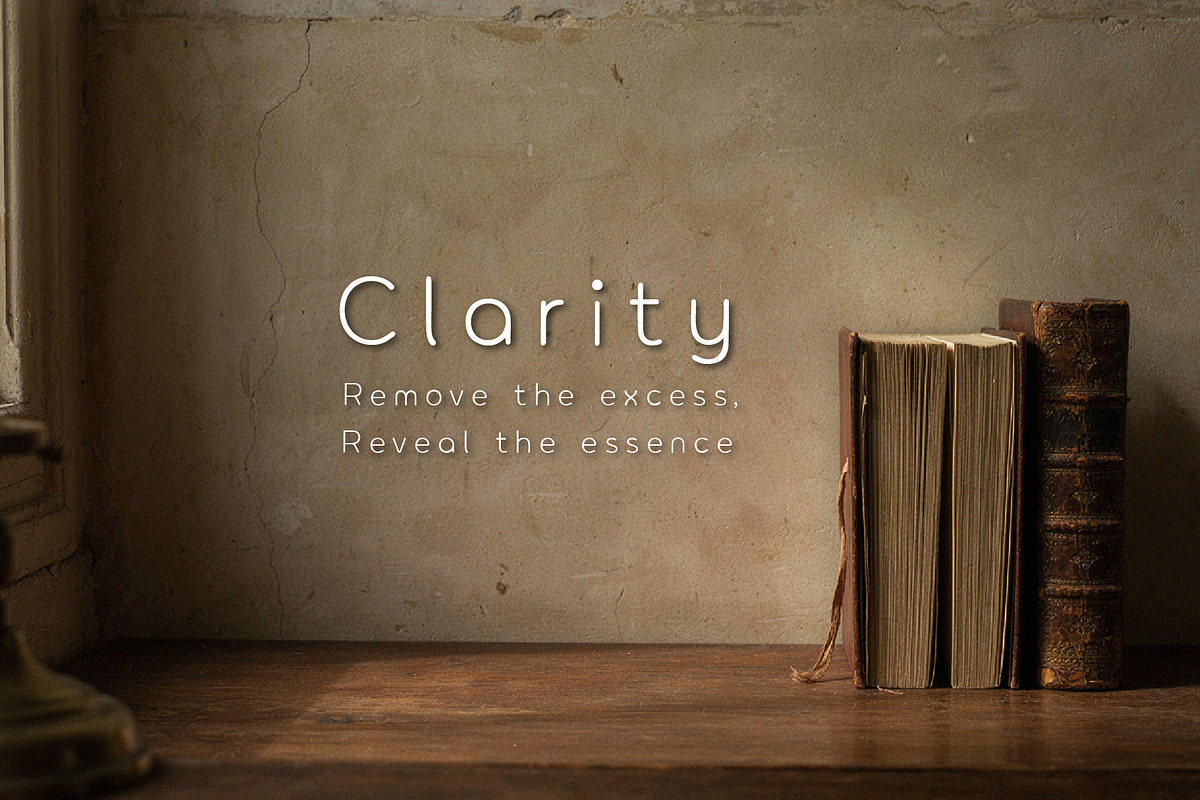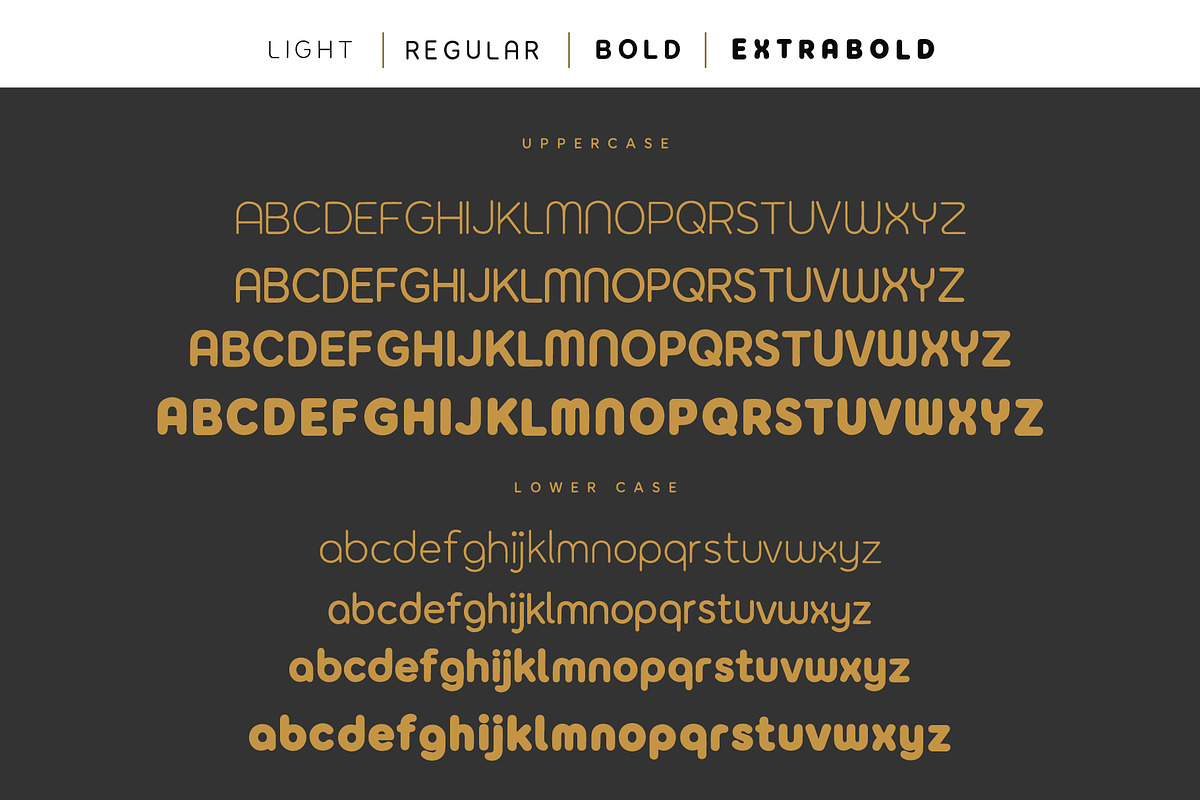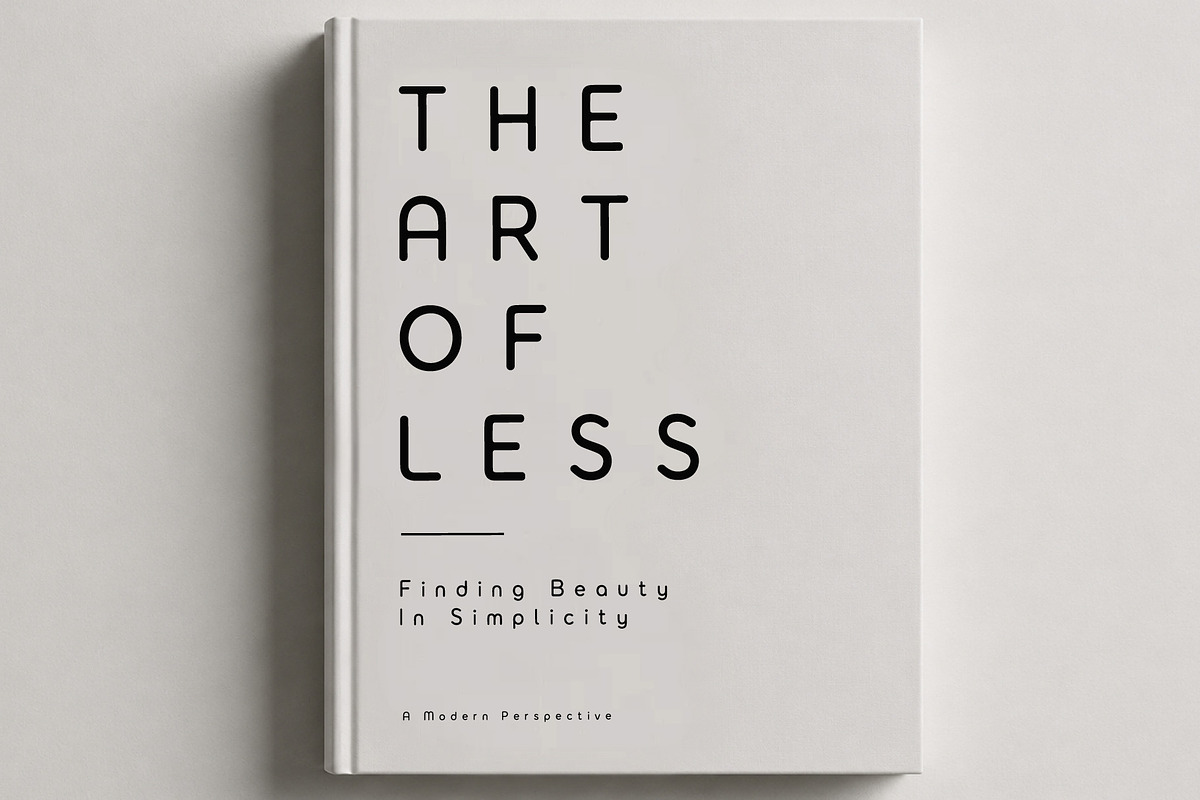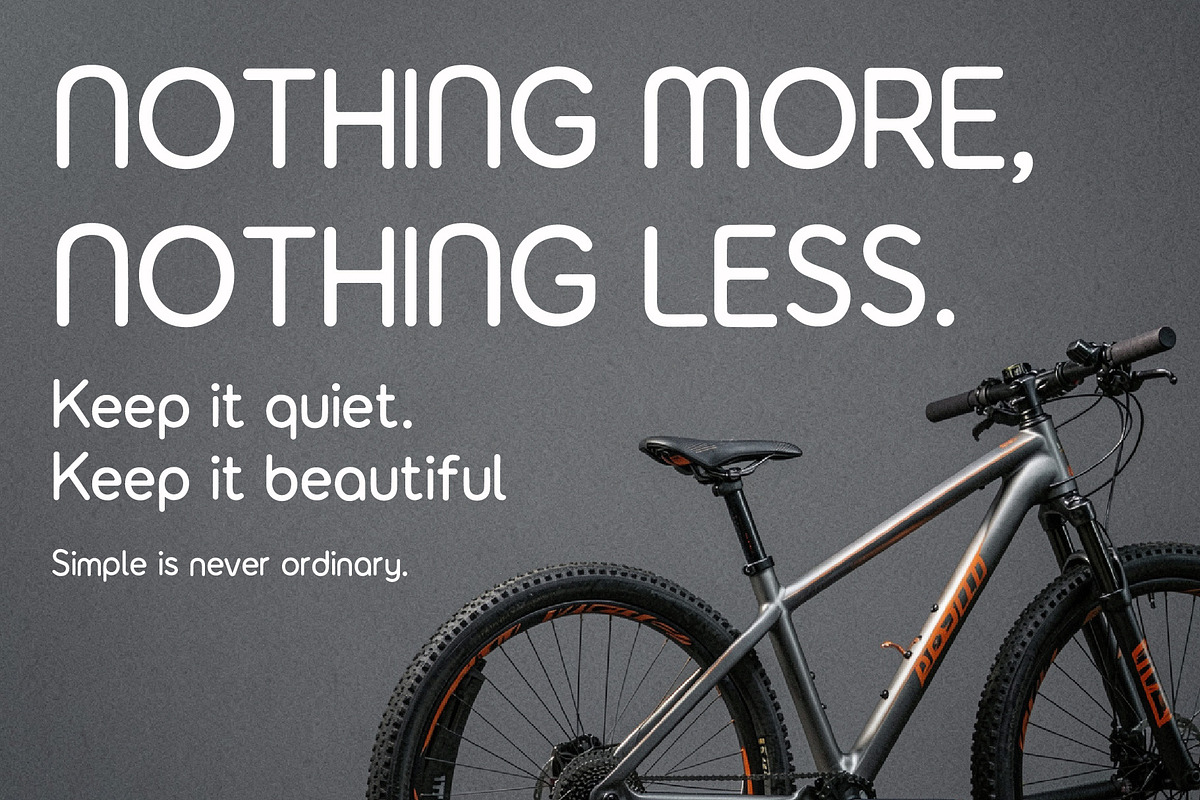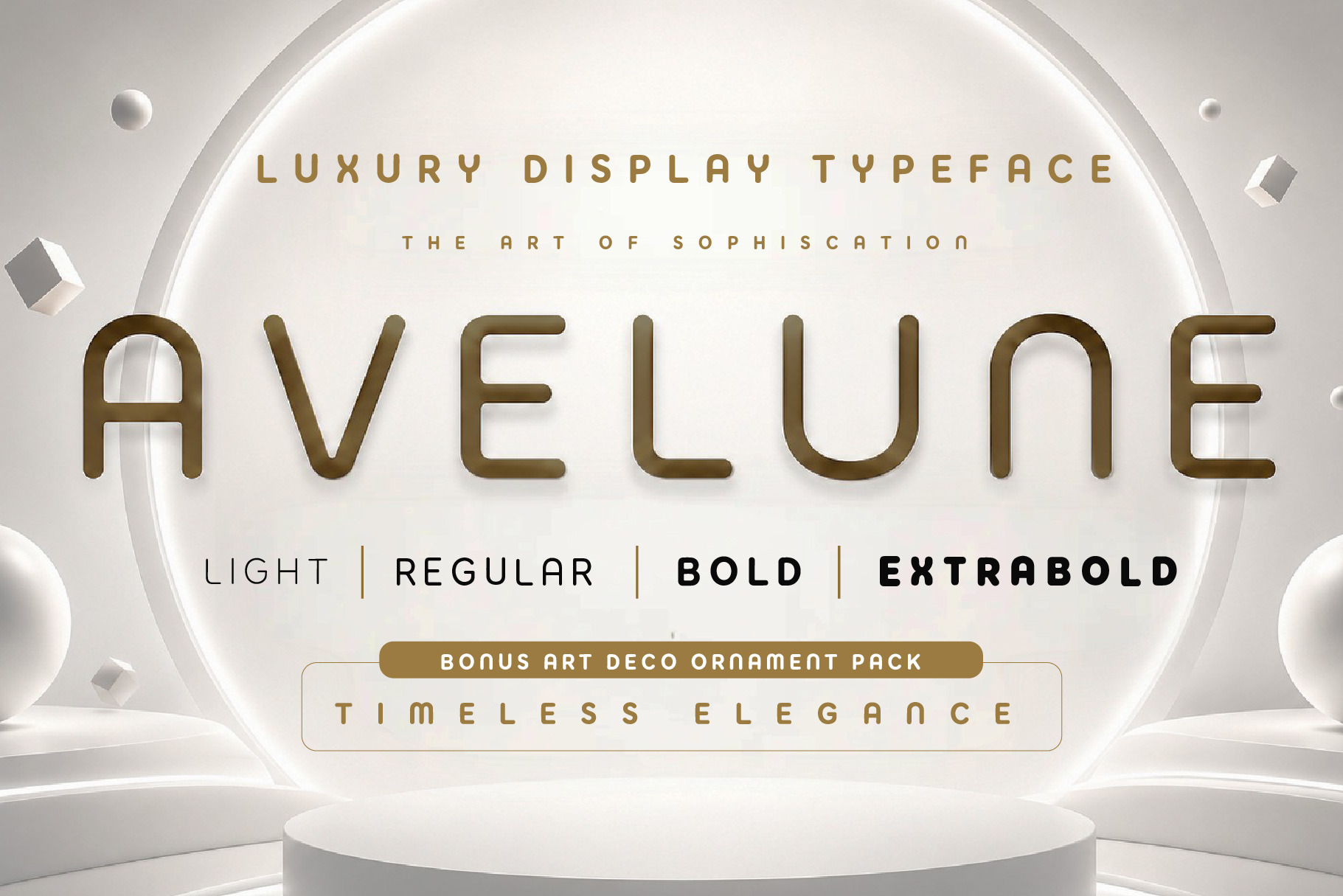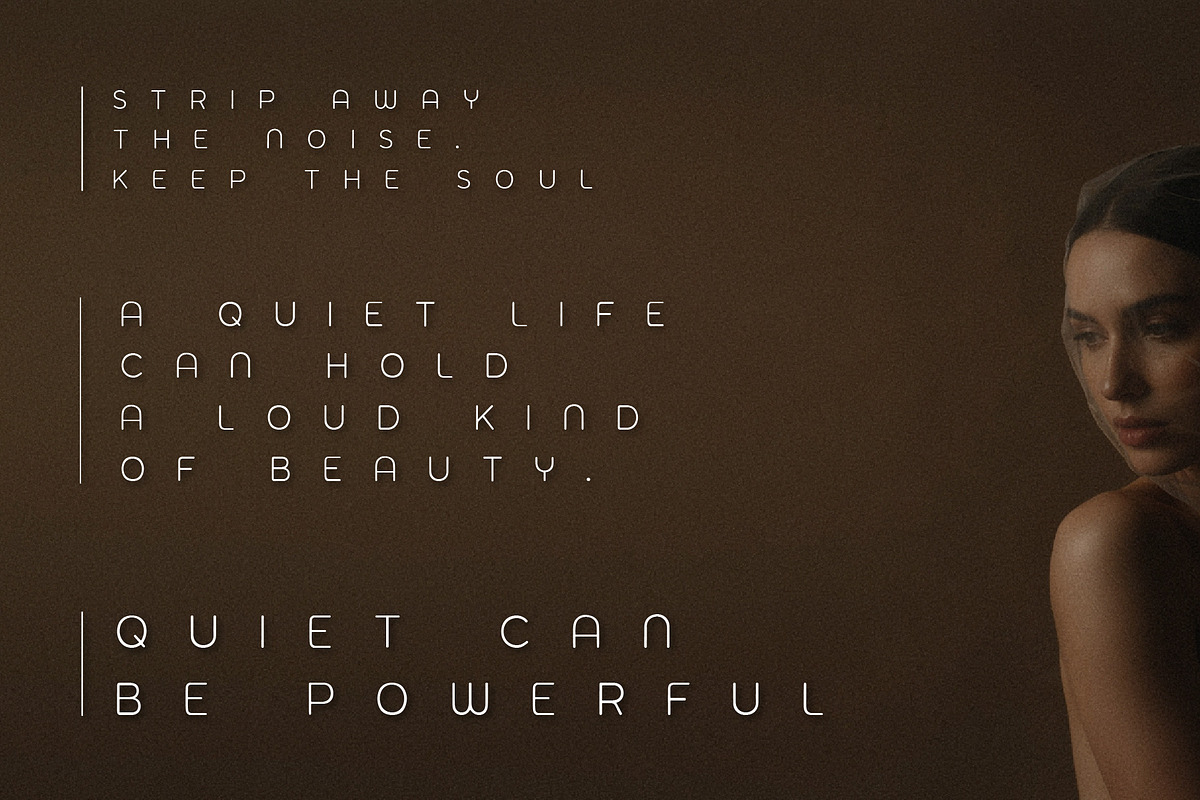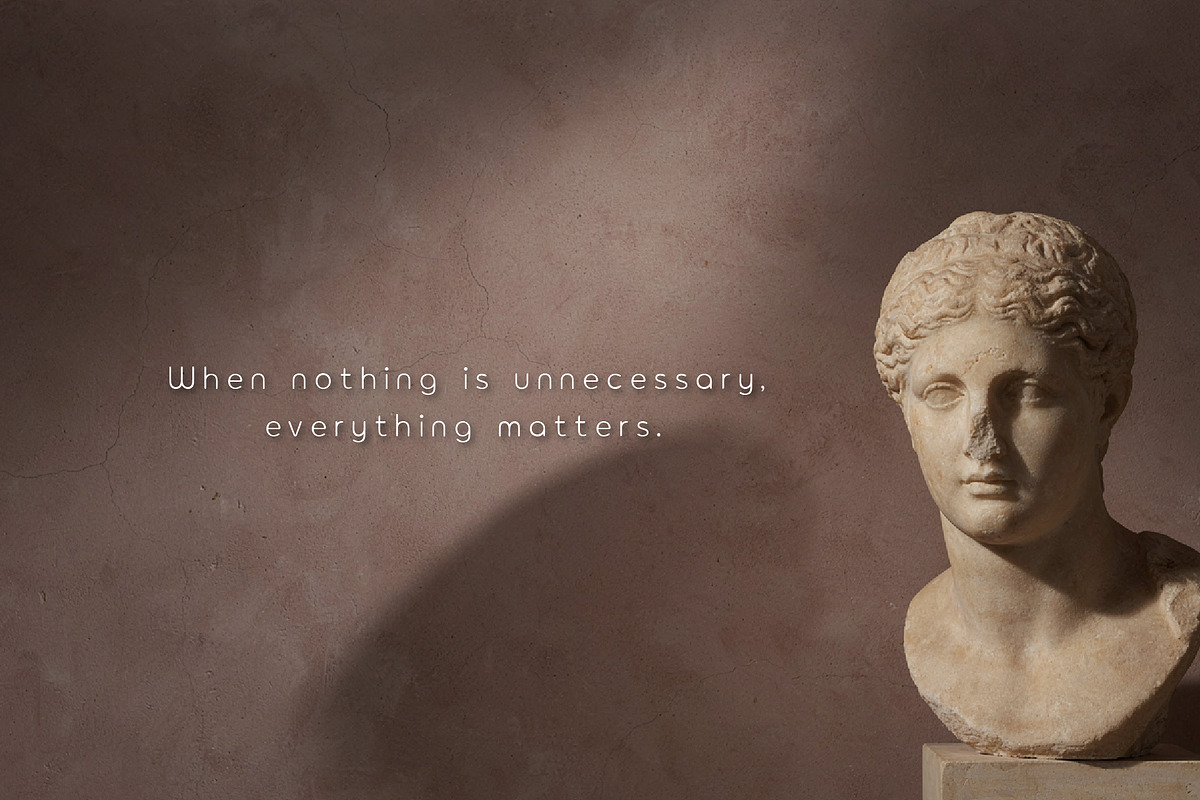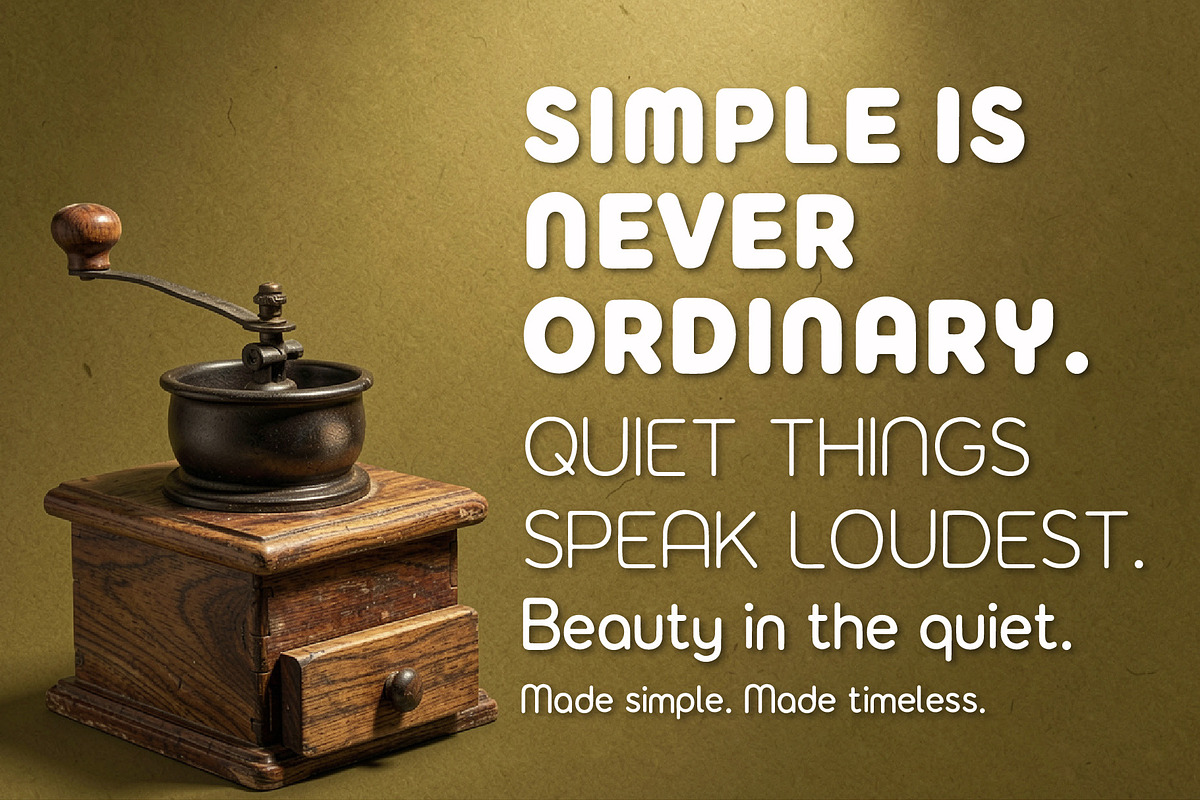
AVELUNE - Timeless Luxury Font
Luxury Display Typeface
AVELUNE is a modern luxury display typeface designed to bring elegance, sophistication, and timeless style to your creative projects. Featuring clean geometric curves, refined proportions, and distinctive letterforms, AVELUNE is perfect for luxury branding, fashion editorials, beauty packaging, boutique hotels, invitations, logos, and premium marketing materials.
Its refined aesthetic balances minimalism with character, making it ideal for brands that want to communicate exclusivity, confidence, and modern elegance.
• Luxury Branding • Fashion & Beauty Brands • Editorial Design • Logo Design • Boutique Hotels • Packaging Design • Invitations & Stationery • Social Media Graphics • Premium Marketing Materials
• Thin • Regular • Bold • Extra Bold
Why You'll Love AVELUNE
Elegant. Modern. Timeless.
AVELUNE was crafted for designers, creatives, and brands seeking a distinctive luxury typeface with exceptional versatility across both print and digital applications. Whether you're designing a premium logo, a high-fashion editorial, luxury packaging, or an elegant social media campaign, AVELUNE delivers a sophisticated visual presence that elevates every project.
Create designs that feel refined, exclusive, and unforgettable with AVELUNE.